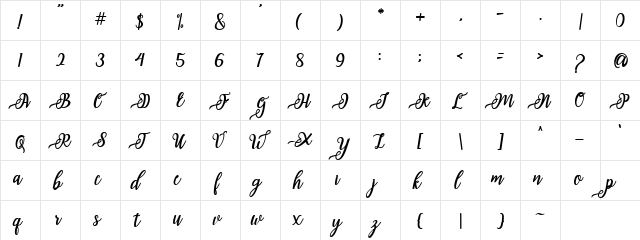
Issabeta Script Regular
Design Context for Issabeta Script Typeface
Issabeta Script brings a calligraphic fluidity to the page — its connecting strokes and expressive curves give it an unmistakably human quality.
Font Pairing: Combine Issabeta Script with a simple geometric sans for maximum contrast — the tension between flowing curves and clean structure is a classic typographic pairing.
Pro Tip: Pair Issabeta Script with a clean sans-serif for supporting text. The contrast between fluid script and geometric structure creates an elegant typographic hierarchy.